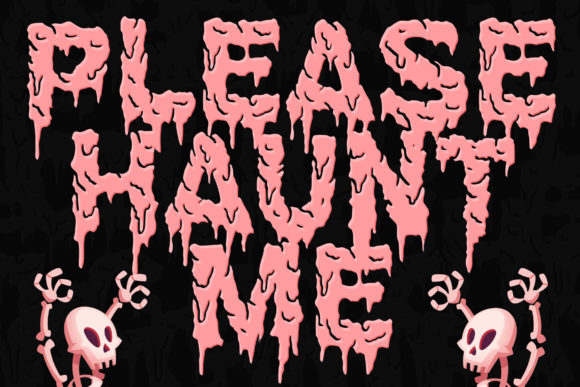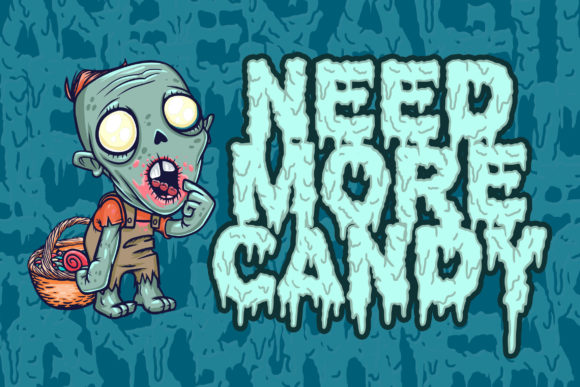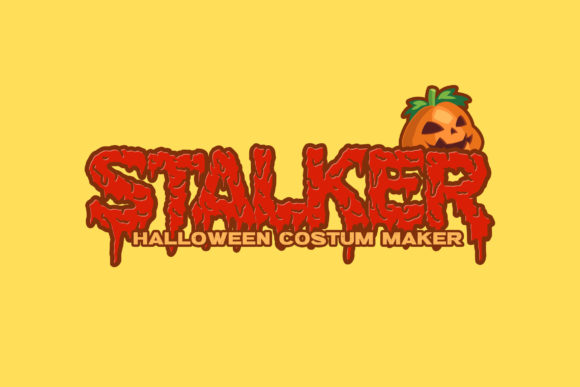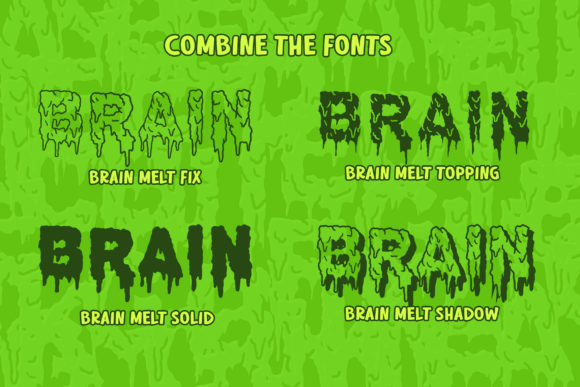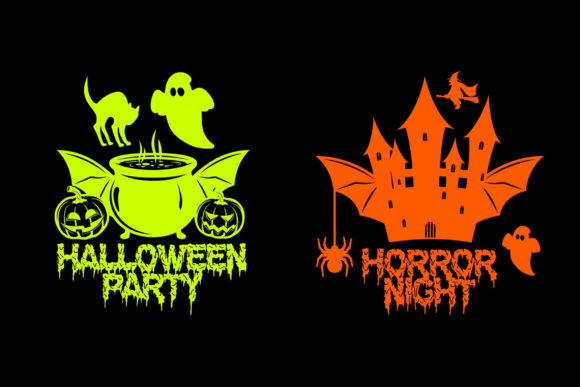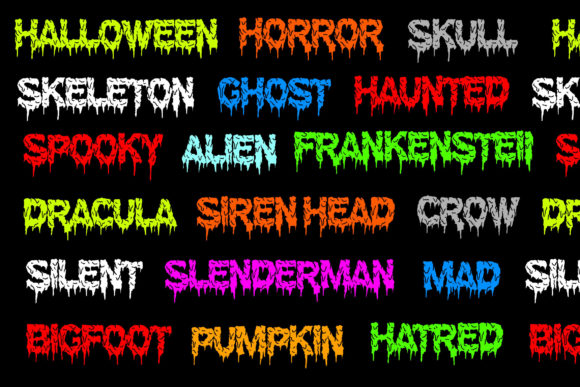
Brain Melt Font: The Perfect Choice for Fun and Creative Projects
Are you a designer, crafter, or educator looking for a font that embodies playfulness and authenticity? Look no further than the Brain Melt Font! This cool, dramatic, and thick lettered display font is perfect for any children activity or school project that requires a fun and creative touch.
What is Brain Melt Font?
Brain Melt Font is a unique and eye-catching font that is designed to make a statement. Its thick, bold letters are perfect for headlines, titles, and any other text that needs to stand out. The font’s playful and authentic vibe makes it ideal for projects that require a fun and youthful touch.
Characteristics of Brain Melt Font
So, what makes Brain Melt Font so special? Here are just a few of its key characteristics:
- Cool and Dramatic: Brain Melt Font has a cool and dramatic vibe that is perfect for making a statement.
- Thick Lettered: The font’s thick letters are bold and eye-catching, making it perfect for headlines and titles.
- Playful and Authentic: Brain Melt Font embodies playfulness and authenticity, making it perfect for projects that require a fun and youthful touch.
Uses for Brain Melt Font
Brain Melt Font is a versatile font that can be used for a wide range of projects, including:
- Children’s Activities: Brain Melt Font is perfect for children’s activity sheets, worksheets, and other educational materials.
- School Projects: The font is also great for school projects, such as posters, presentations, and reports.
- Crafting and DIY: Brain Melt Font can be used for crafting and DIY projects, such as making signs, banners, and other decorative items.
- Design and Art: The font can also be used for design and art projects, such as creating logos, graphics, and other visual elements.
Why Choose Brain Melt Font?
So, why should you choose Brain Melt Font for your next project? Here are just a few reasons:
- Unique and Eye-Catching: Brain Melt Font is a unique and eye-catching font that is sure to grab attention.
- Playful and Fun: The font’s playful and fun vibe makes it perfect for projects that require a youthful touch.
- Easy to Read: Despite its bold and thick letters, Brain Melt Font is easy to read, making it perfect for use in a variety of contexts.
Tips for Using Brain Melt Font
Here are a few tips for using Brain Melt Font effectively:
- Use it Sparingly: Because Brain Melt Font is so bold and eye-catching, it’s best to use it sparingly. Use it for headlines and titles, and then switch to a more traditional font for body text.
- Pair it with Other Fonts: Brain Melt Font can be paired with other fonts to create a unique and interesting look. Try pairing it with a more traditional font for a fun and playful contrast.
- Experiment with Colors: Brain Melt Font looks great in a variety of colors. Experiment with different colors to find the one that works best for your project.
| Font Name | Brain Melt Font |
| Author | fontherapy |
In conclusion, Brain Melt Font is a cool, dramatic, and thick lettered display font that is perfect for any children activity or school project. Its playful and authentic vibe makes it ideal for projects that require a fun and youthful touch. With its unique and eye-catching design, Brain Melt Font is sure to grab attention and make your project stand out.